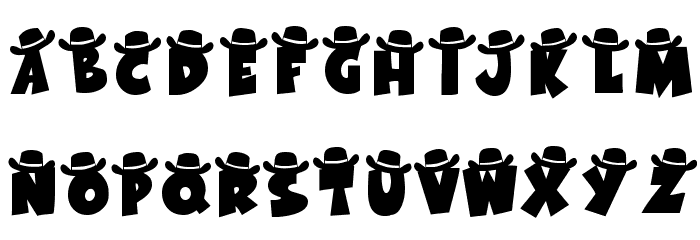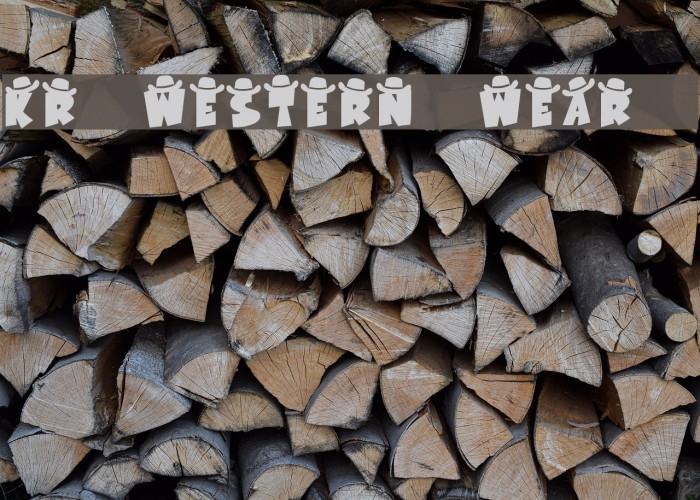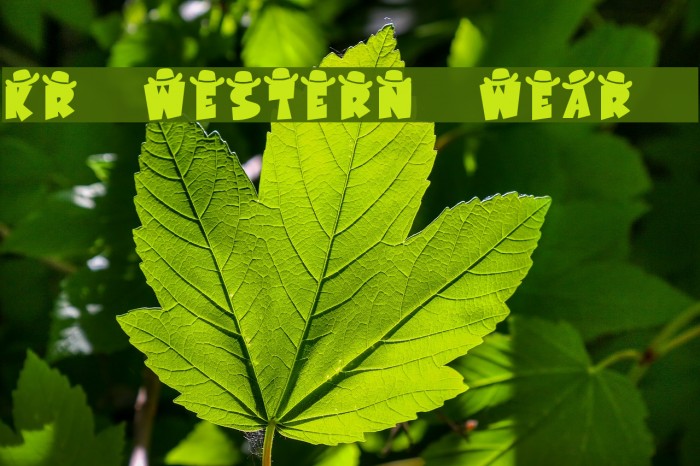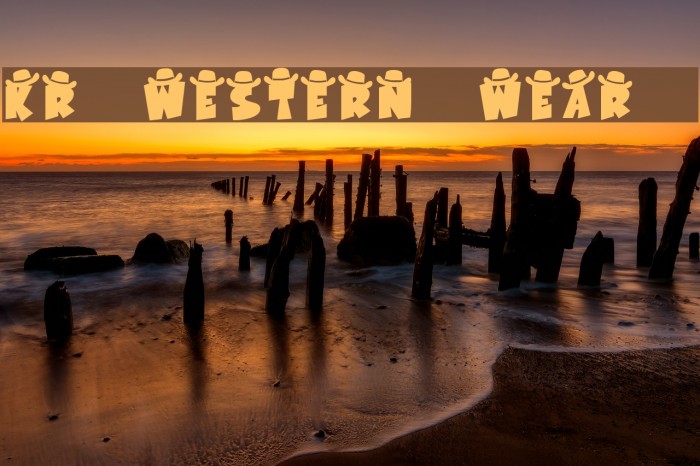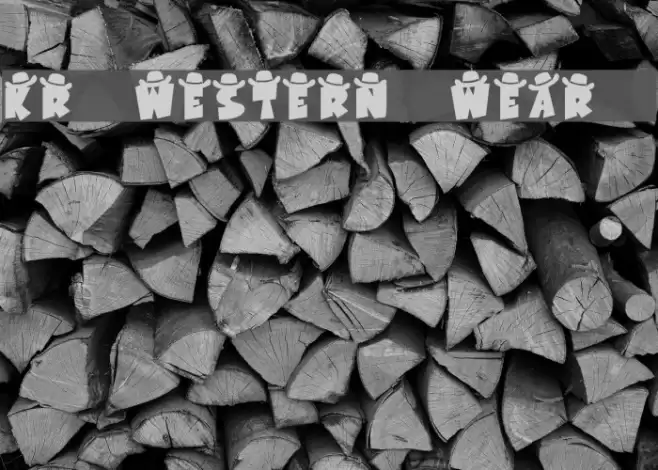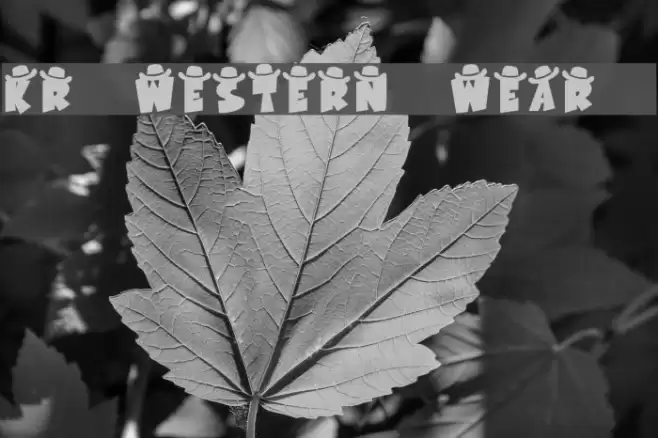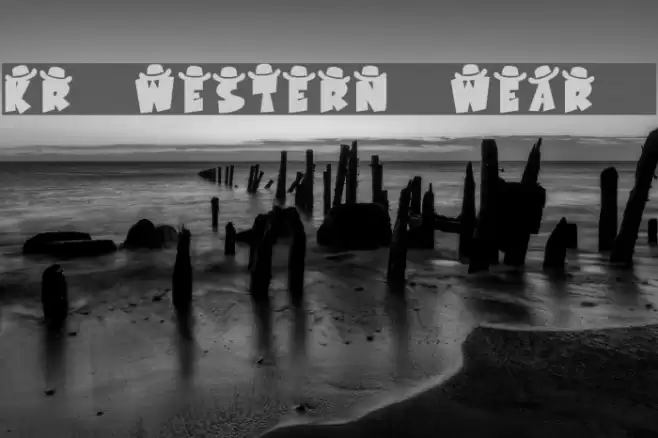
KR Western Wear 1 Font
This playful and bold font features uppercase letters adorned with cowboy hats, giving it a distinct Western theme. The characters are wide and blocky, with a strong presence that makes them ideal for eye-catching designs. The hats add a whimsical touch, making the font suitable for themed events or playful branding. The absence of lowercase letters and numbers suggests a focus on decorative use rather than practical text applications. The font's unique style is perfect for projects that require a fun, thematic element.
A bold, Western-themed font with cowboy hats on uppercase letters.
- Proposed Projects: Ideal for Western-themed posters, party invitations, or playful branding projects.